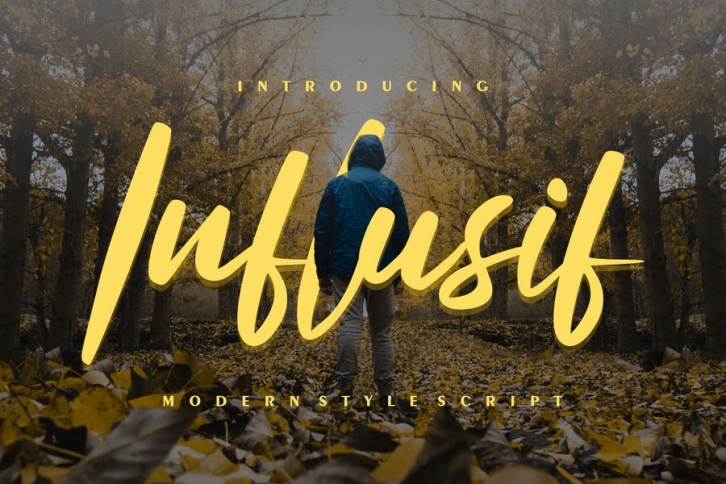
Influsif | Modern Style Script with a calligraphy style, So beautiful on invitation like greeting cards, branding materials, business cards, quotes, posters, and more!
- Alternates and Ligatures